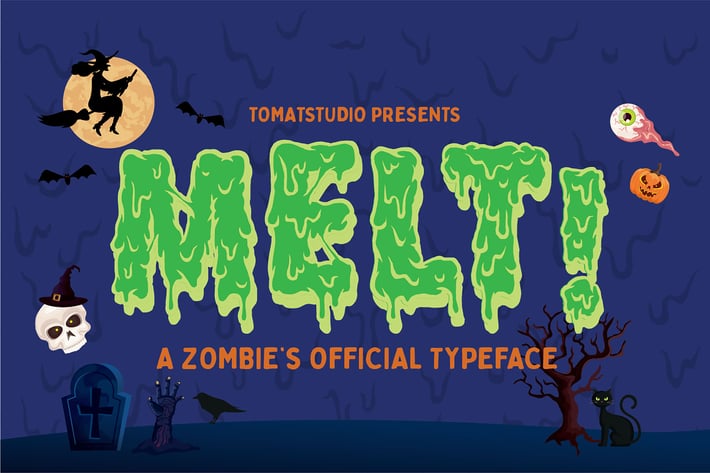
Halloween Horror Zombie Fonts | Melt fonts
Do you looking for best mud, slime, dripping, melting fonts for your design? this is the answer!
Melt font is created with freehand digital drawing and created very detail, best for your vintage looking horror poster it also good for your design elements aswell.